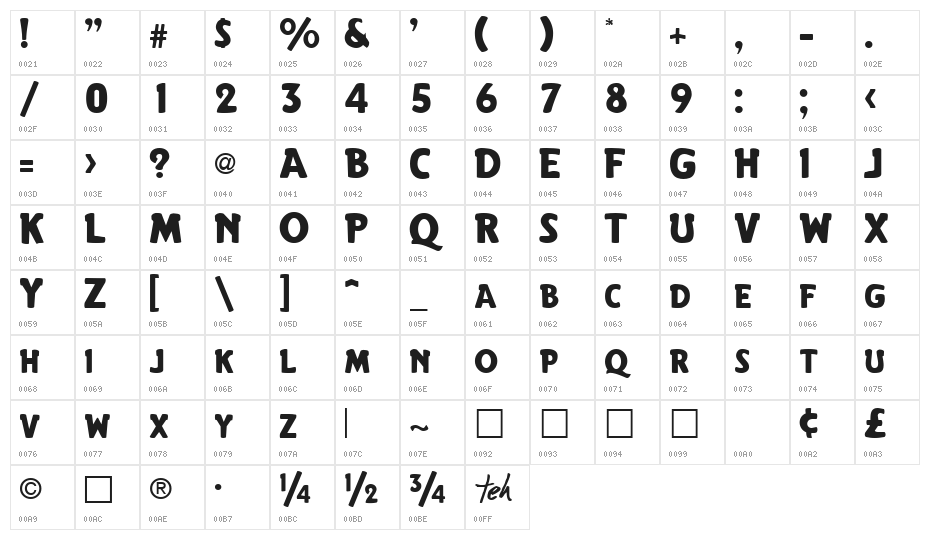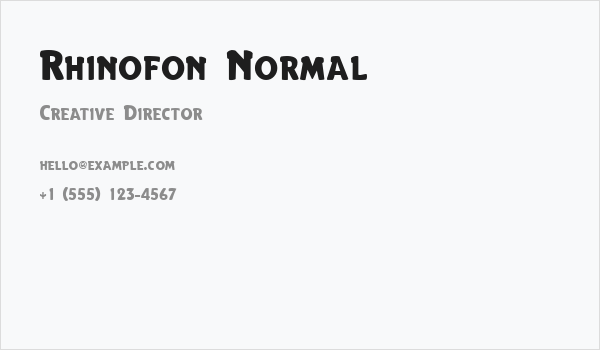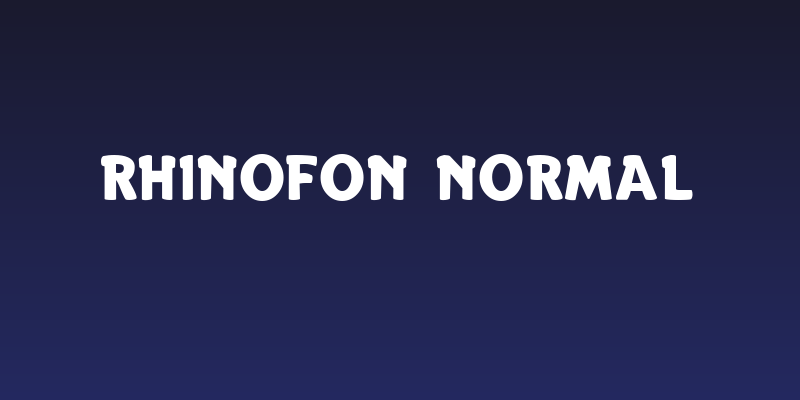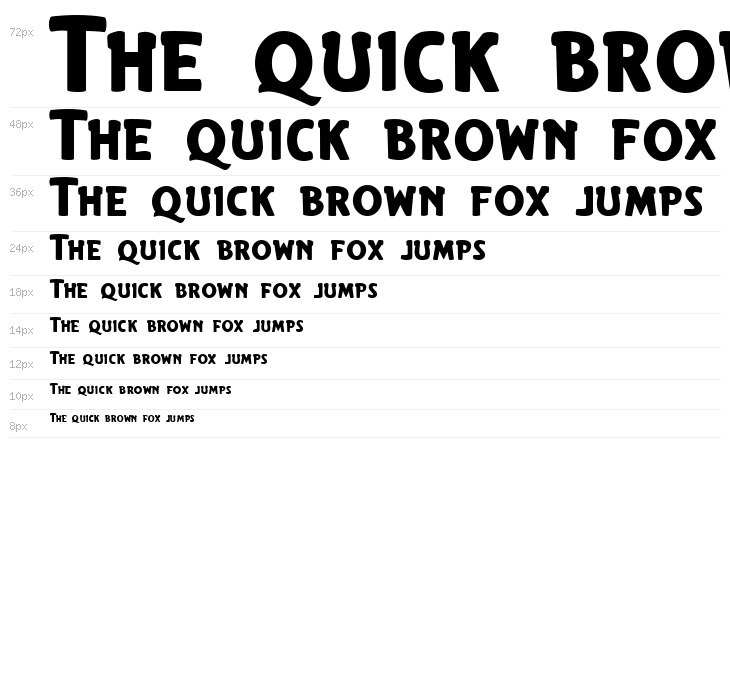
Rhinofon Normal Font
| Область применения | Logos, Headlines, Posters |
| Рекомендуемые проекты | Ideal for children's books, playful branding, posters, and creative advertising. |